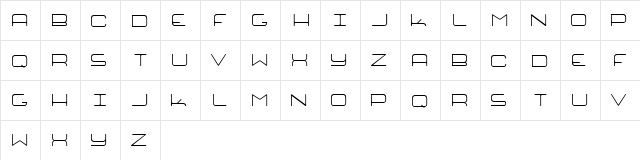
ECROBIAL Regular
Design Context for ECROBIAL Typeface
ECROBIAL takes a measured approach to typography — its balanced proportions and neutral character make it a reliable workhorse for both digital and print work.
Pro Tip: Use ECROBIAL in both headline and body roles to test its range before committing to a single application.